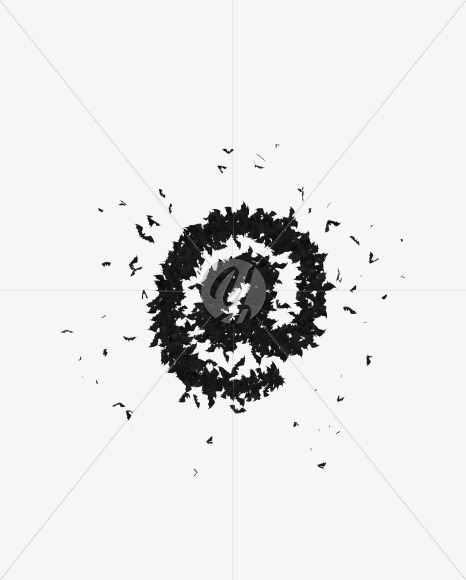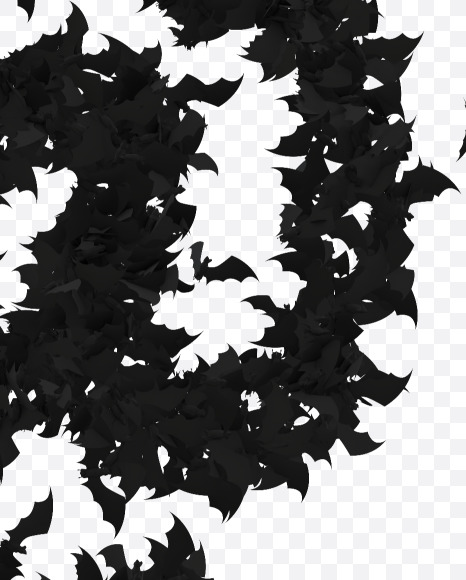
Halloween Typeface made out of bats the character At
Halloween Typeface made out of bats the character At from Halloween Bat Typeface on Yellow Images Creative Fonts - S81429